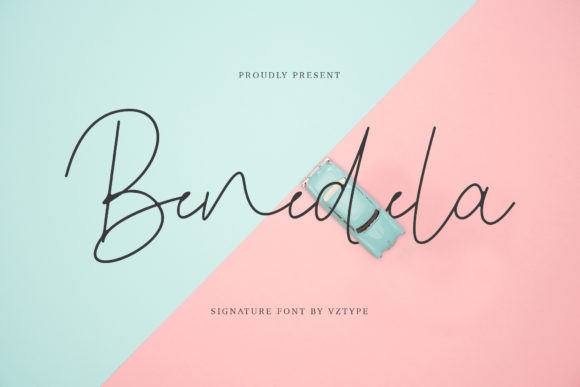
The Benedela Font: A Friendly Script to Elevate Your Designs
I still remember the design project that led me to discover the Benedela font. I was working on a branding project for a new coffee shop, and I needed a font that would convey a sense of warmth and friendliness. After hours of searching through font libraries, I stumbled upon Benedela, and it instantly clicked. The elegant script with a friendly feel was exactly what I needed to bring the brand to life.
An Honest Review of Benedela
- ✨ Elegant and refined script style with a friendly feel
- 💫 Beautifully crafted to add a touch of sophistication to any design
- 🎨 Versatile and can be used for a wide range of design projects, from branding to invitations
While Benedela is an amazing font, there are a few things to keep in mind:
- ⚠️ Some users have reported issues with kerning, particularly with certain letter combinations. However, this can often be adjusted in design software.
- 🤔 The font may not be the best choice for very long blocks of text, as it is a script font and can be more challenging to read in large quantities.
The Story Behind Benedela
Benedela was designed with the intention of creating a beautiful, elegant script font that would bring a touch of sophistication to any design. The font’s creator aimed to craft a font that would be both refined and friendly, making it perfect for a wide range of design projects.
| What type of designs is Benedela best suited for? | Benedela is a versatile font that can be used for a wide range of design projects, from branding and logos to invitations and social media graphics. |
| Does Benedela support OpenType features? | Yes, Benedela supports OpenType features, including glyphs and stylistic alternates. This allows for greater flexibility and creativity in your designs. |